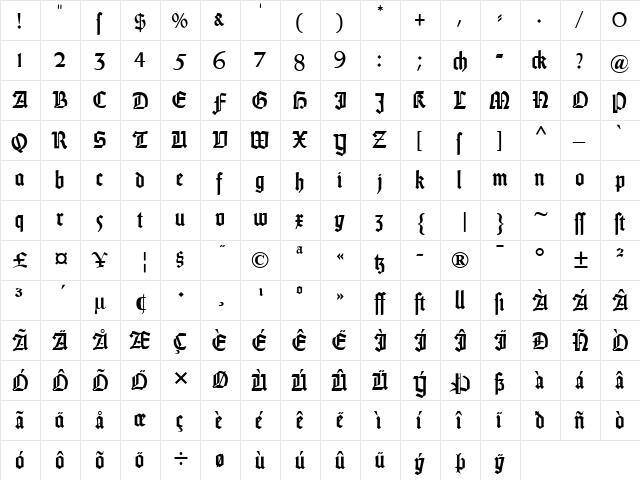
DS Weiss-Gotisch Alt Regular
| Foundry | Typographer Mediengestaltung |
| Designer | Emil Rudolf Weiss (1936) |
Design Context for DS Weiss-Gotisch Alt Typeface
DS Weiss-Gotisch Alt is a composed and adaptable typeface that performs quietly and consistently across a wide range of design contexts.